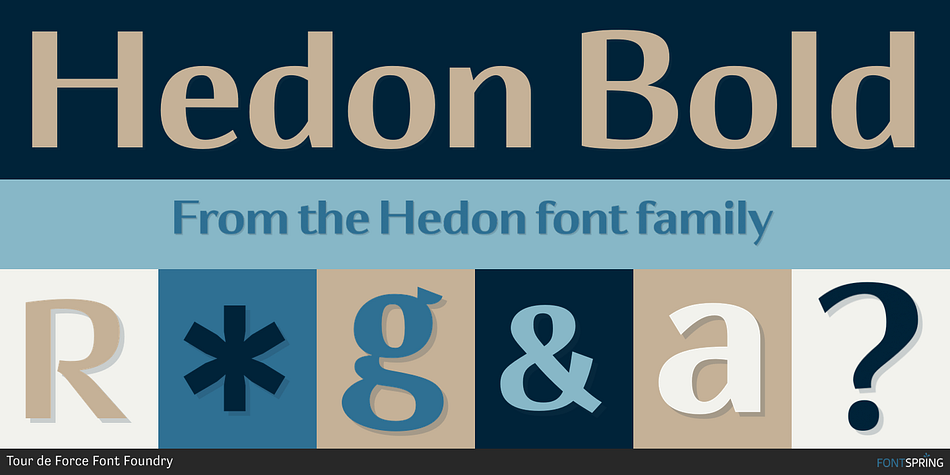
Hedon Bold
Hedon is a sans serif font family. This typeface has eight styles and was published by Tour de Force Font Foundry.
Hedon is hedonistic & humanistic, but not egoistic sans serif family.
Hedon is hedonistic & humanistic, but not egoistic sans serif family. Comes out with 4 weights and matching Italics.
It declares as neutral, versatile and legible partner for any kind of publications, with tiny dose of impressible characteristics that tenderize it’s base.